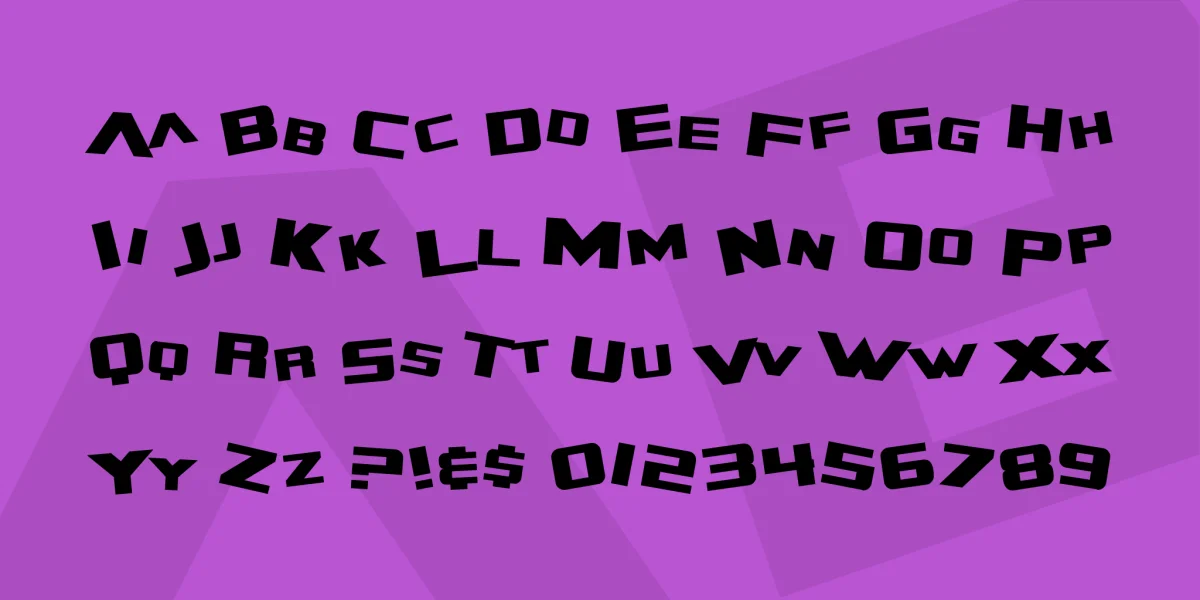
A futuristic typeface floating away to the far reaches of space, SF Zero Gravity contains lowercase and uppercase characters, numbers, and a limited amount of punctuation.